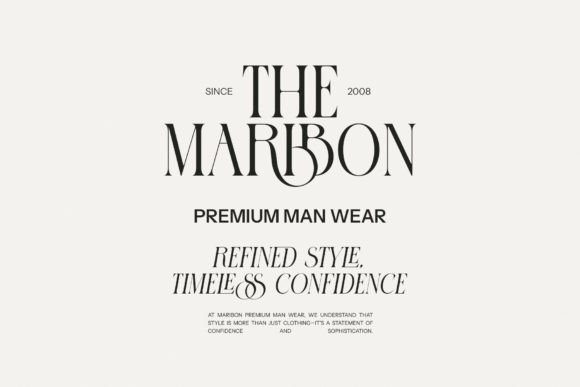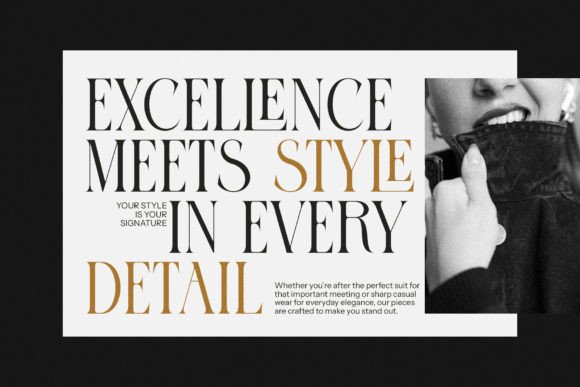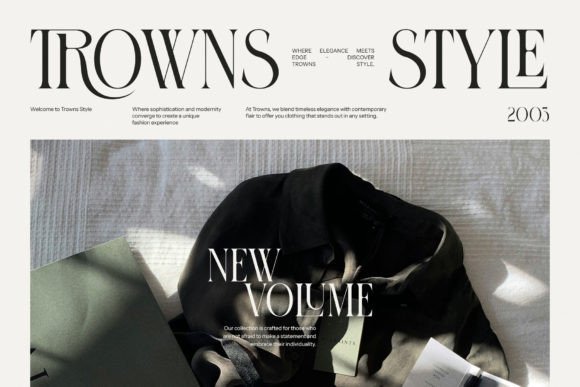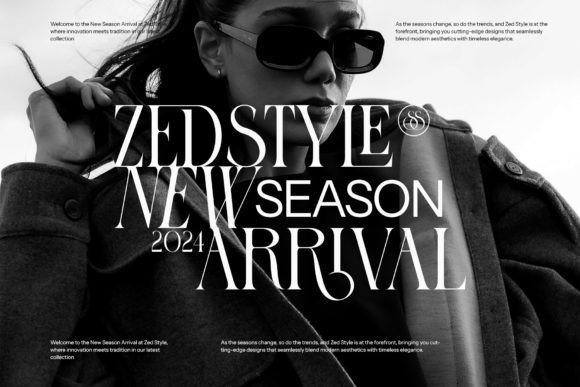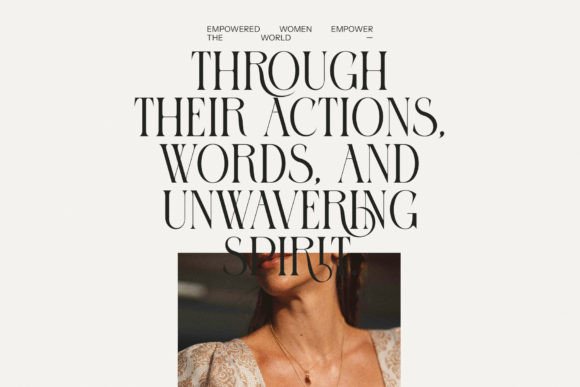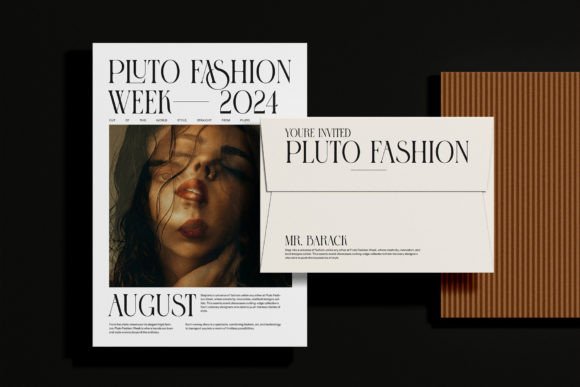
Introduction to Katros Font
Have you ever been working on a creative project, pouring your heart and soul into every detail, only to realize that the perfect font is missing? For designers, finding the right font can make all the difference between a great design and a mediocre one. This is where the elegant Katros Font comes in – a high-quality serif font that adds a touch of sophistication to any project.
With its stylish, thin lines and smooth curves, Katros Font is perfect for designers looking to create a classic, refined look for their logos, invitations, or magazine designs. Its unique blend of modern and traditional elements makes it both easy to read and visually stunning, making it a valuable resource for any design project.
Key Features of Katros Font
- Unique, modern font style with a transparent background, perfect for adding a touch of elegance to any design.
- Includes 5 different font sizes, ranging from 12pt to 72pt, allowing for flexibility in your design.
- Designed to be highly legible, making it perfect for body text, headings, and titles in your design project.
Honest Review: Katros Font
I recently came across the Katros Font, and I must say it’s been a game-changer for my creative projects. This high-quality font is perfect for designers who want to add a touch of sophistication to their designs.
The Katros Font comes with a transparent background, making it easy to overlay on top of images or other design elements. This feature has been a lifesaver for me on multiple occasions, especially when working on complex design projects.
- Perfect for digital and print designs
Overall, I’m thoroughly impressed with the Katros Font. It’s a solid addition to any designer’s collection, and I highly recommend it to anyone looking for a reliable design resource.
Limitations: None that I’ve encountered so far, but I do wish the font had more language support.
Tips for Getting the Most Out of the Katros Font
To get the most out of the Katros Font, use it in combination with a transparent background to create a unique and eye-catching design. You can also use the font in a variety of creative projects, such as logos, business cards, and social media graphics.
The Katros Font is ideal for use in creative projects, such as logos, business cards, and social media graphics. It is also great for use in presentations and documents where a high-quality, unique font is needed.